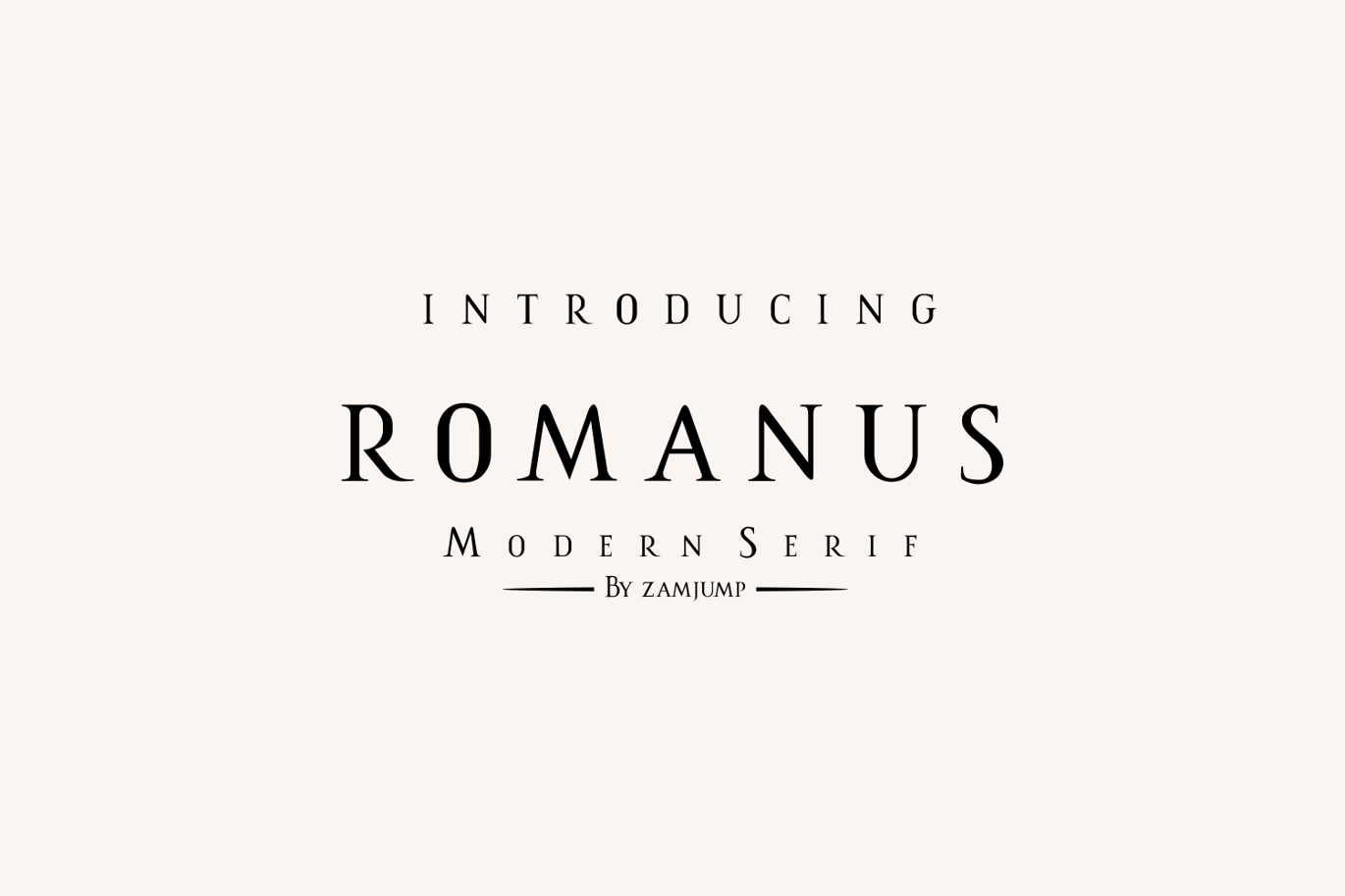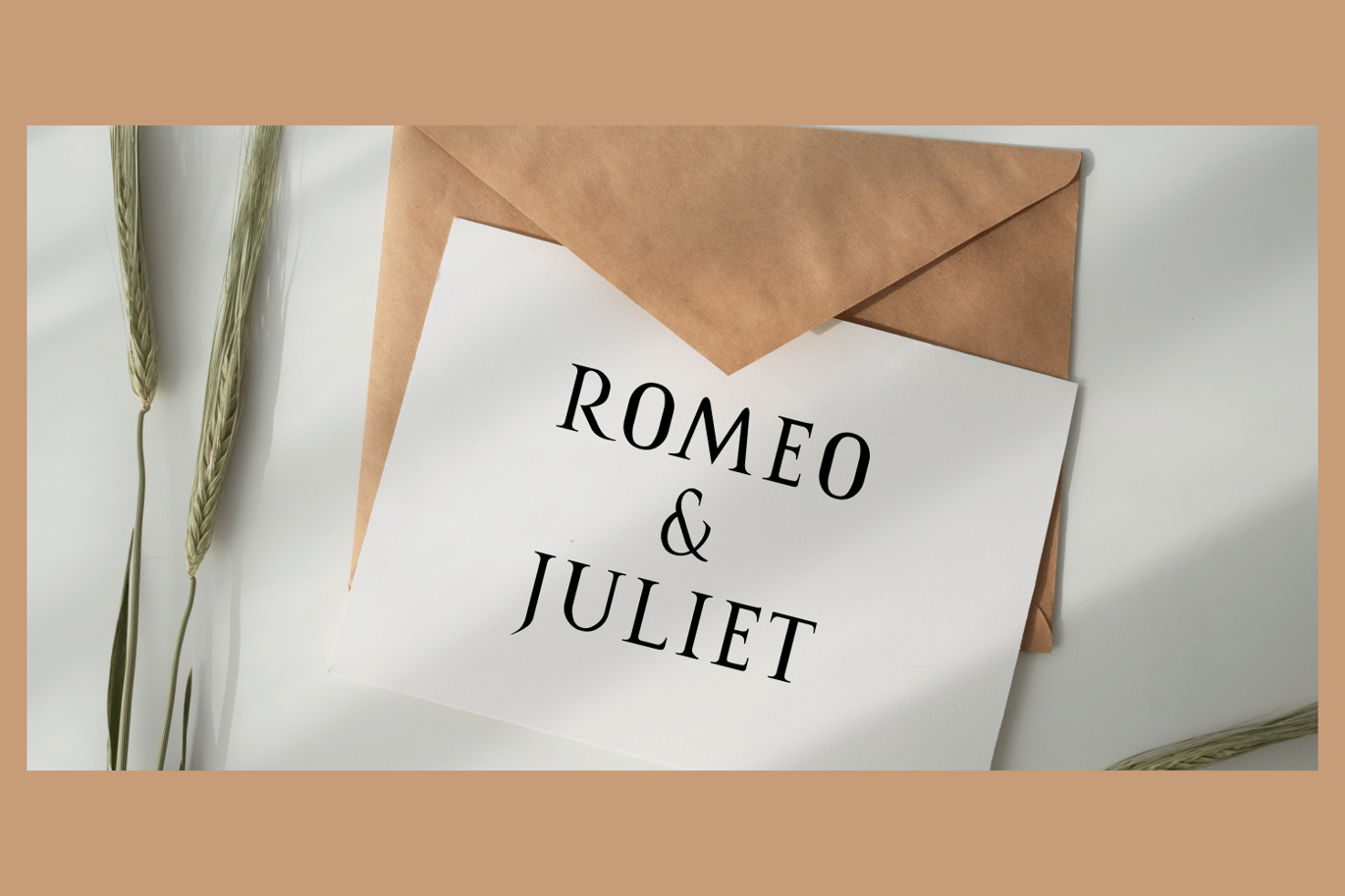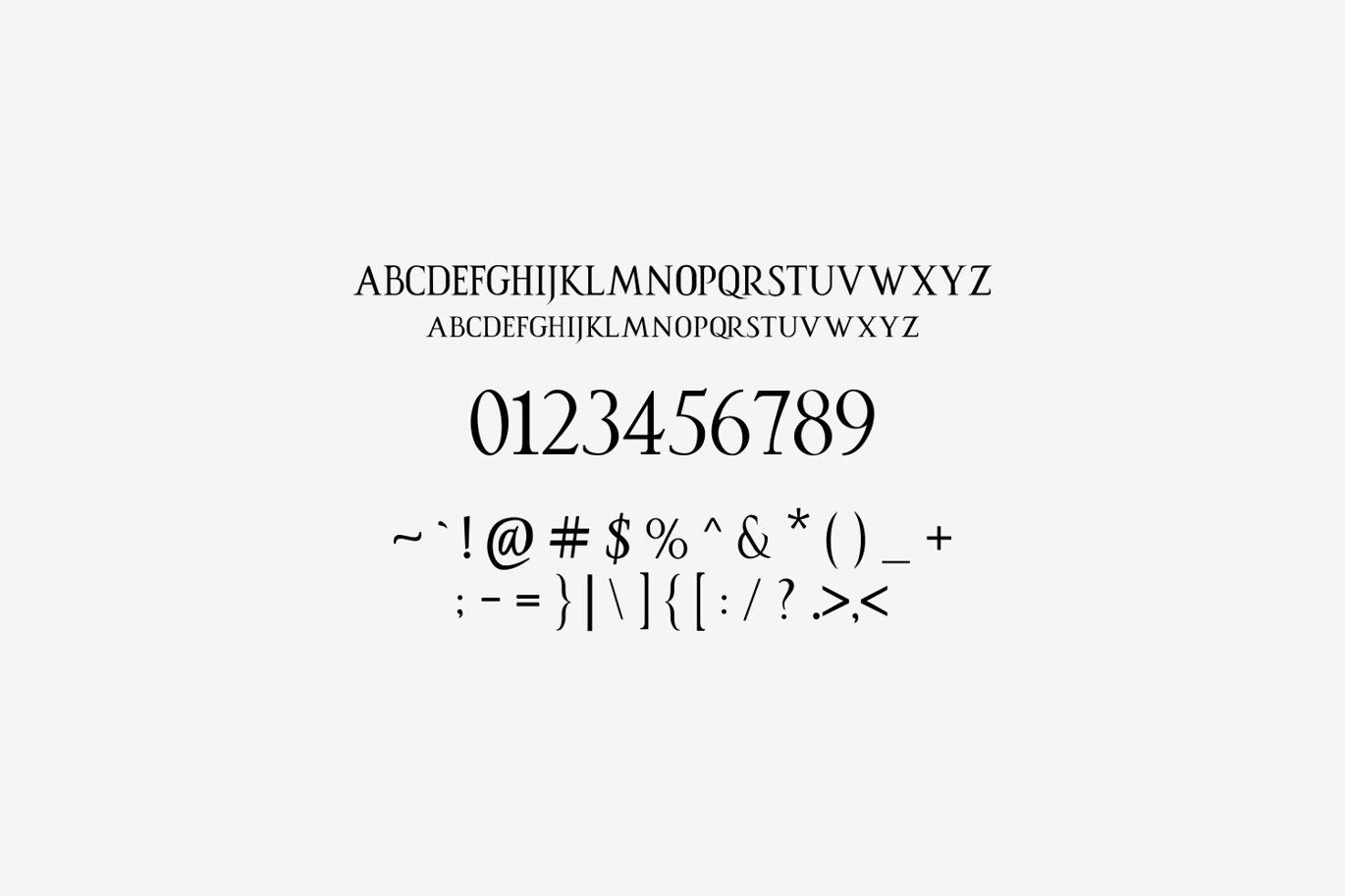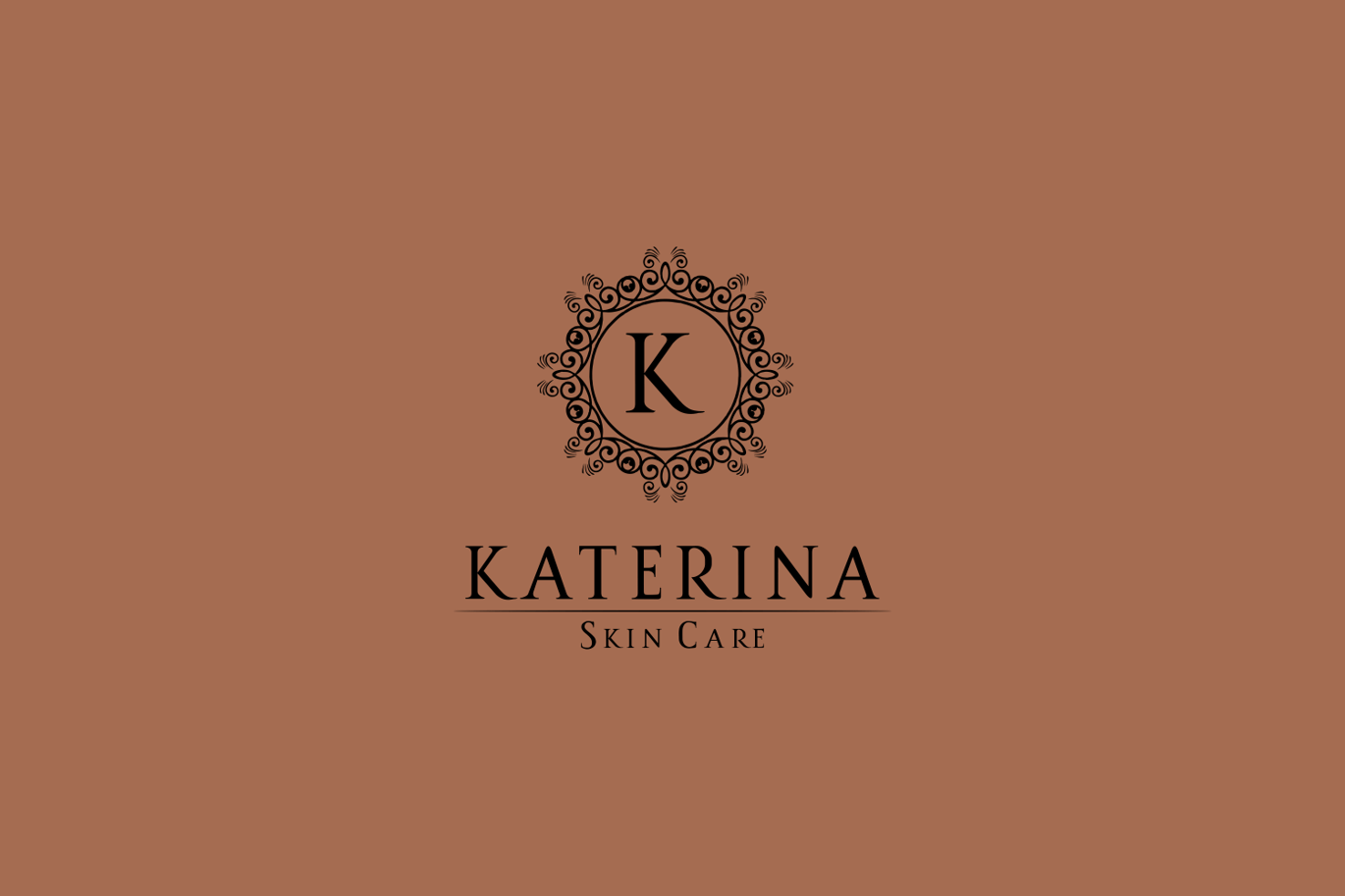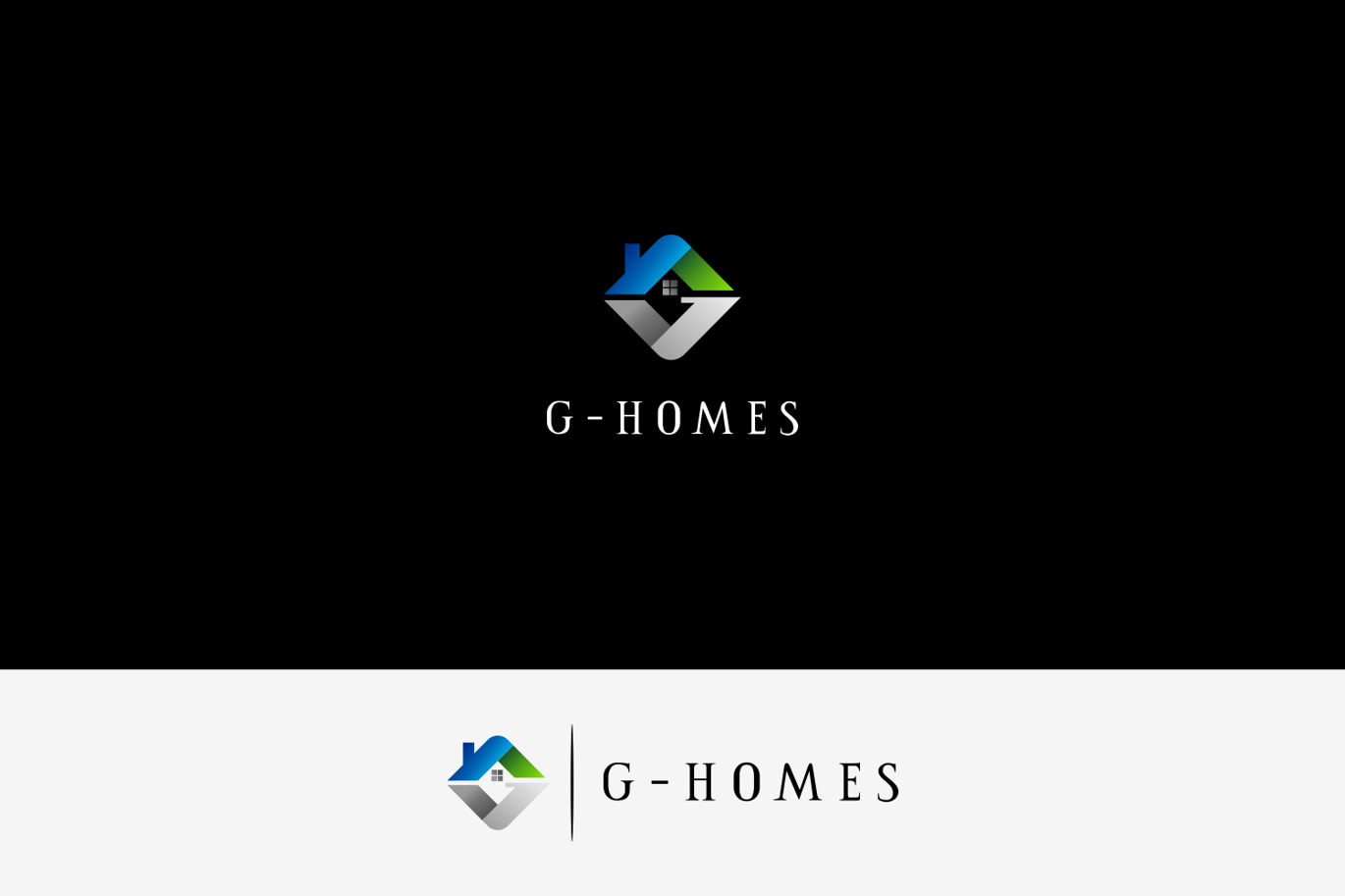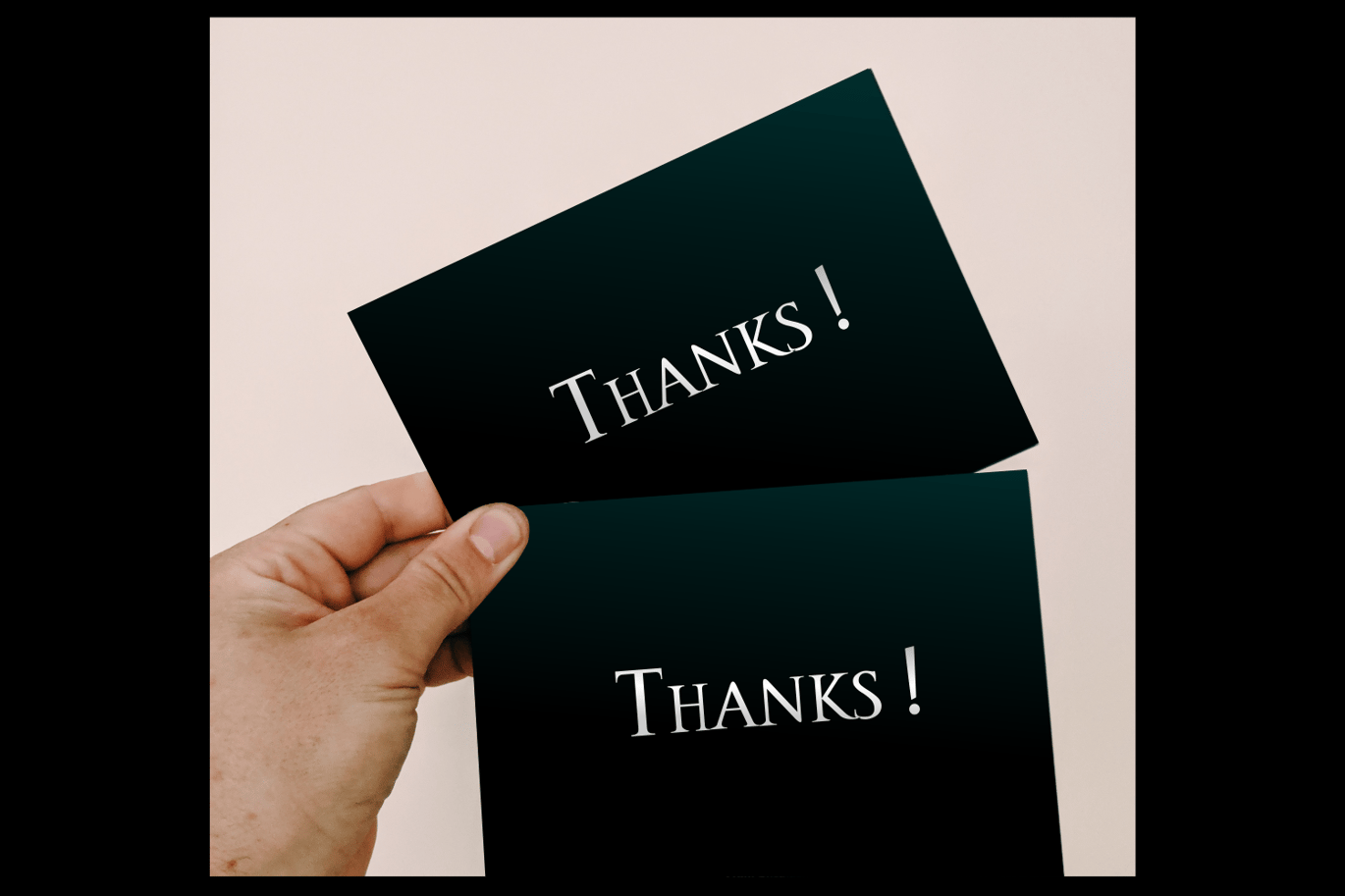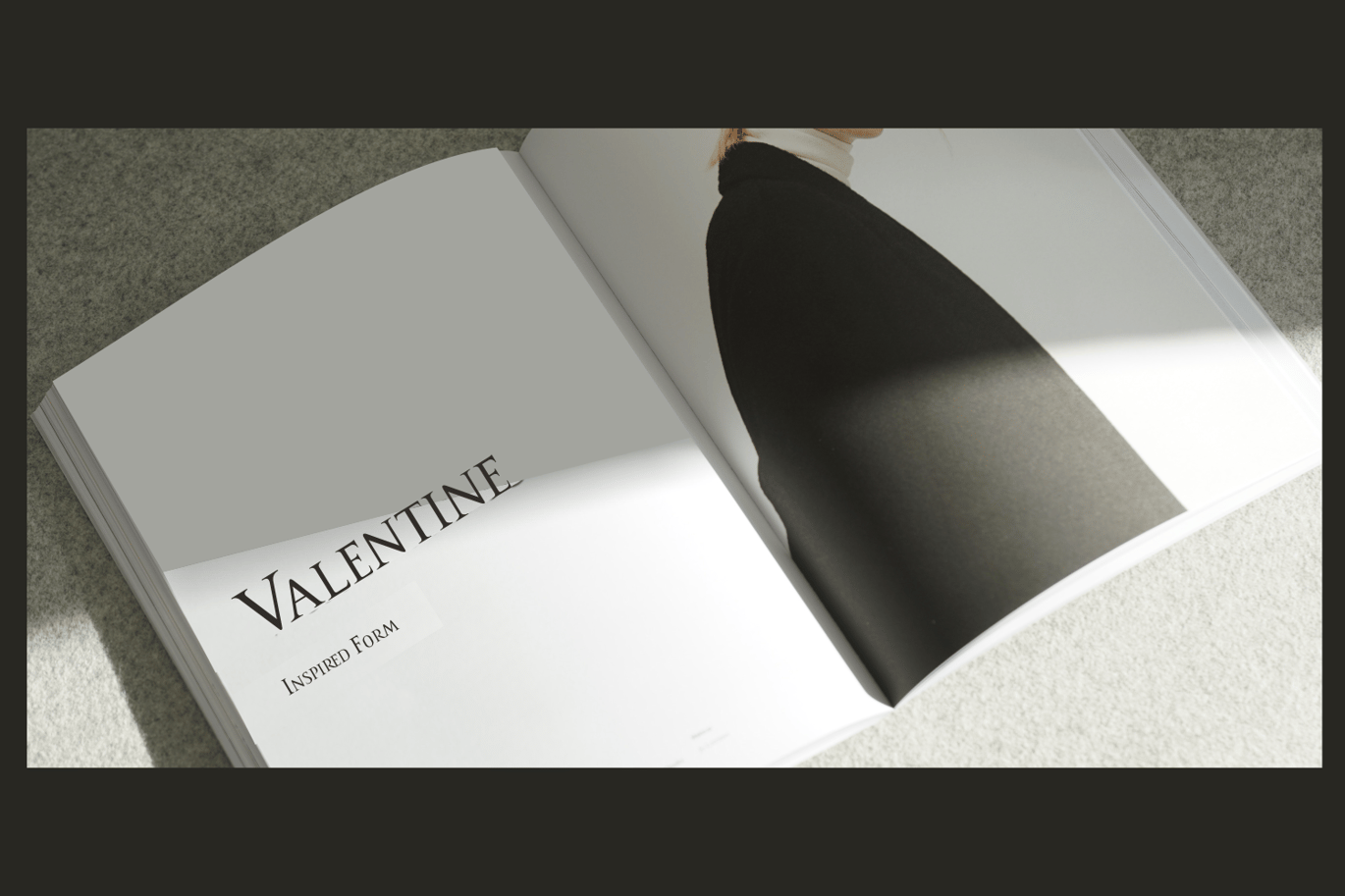
Romanus – a Classic Font
Romanus is a classic font with strong characters, ideal for logos, event titles, quotes, magazines, product packaging, or anything that requires a classic style boost. Romanus offers international languages and characters. Type a-z using this font, and you will get a unique font arrangement and strong characters .